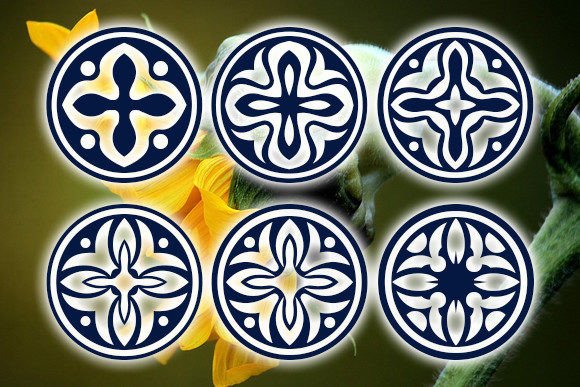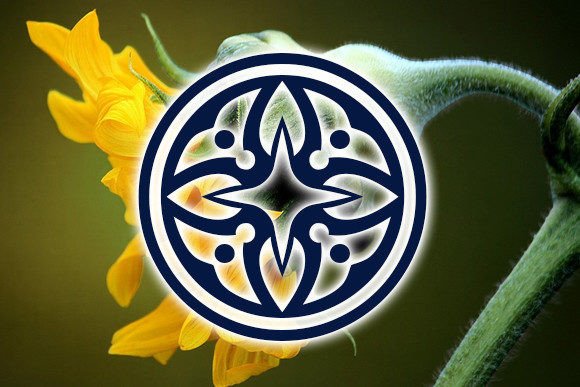
Circular Ornaments Font: Elevate Your Designs with Elegant Dingbats
Are you a designer, crafter, or DIY enthusiast looking for a unique and versatile ornament to add a touch of elegance to your projects? Look no further than the Circular Ornaments Font, an ornamental dingbat that can instantly elevate your designs. This comprehensive guide will explore the features, benefits, and uses of Circular Ornaments, helping you unlock its full creative potential.
What is Circular Ornaments Font?
Circular Ornaments Font is a decorative dingbat font designed to add a touch of sophistication to your designs. As an ornamental dingbat, it consists of intricate circular patterns and shapes that can be used to enhance posters, flyers, prints, and other visual projects. The font is carefully crafted to be versatile and adaptable, making it suitable for various design applications.
Key Features of Circular Ornaments Font
• Intricate Circular Designs: The font features beautiful, intricate circular patterns that can add a touch of elegance to your designs.
• Versatile and Adaptable: Circular Ornaments Font can be used on various design projects, from posters and flyers to prints and digital art.
• Scalable: The font is designed to be scalable, ensuring that it remains clear and crisp even at large sizes.
Benefits of Using Circular Ornaments Font
So, why should you choose Circular Ornaments Font for your designs? Here are just a few benefits:
• Adds Visual Interest: The intricate circular patterns in Circular Ornaments Font can add visual interest to your designs, making them more engaging and attention-grabbing.
• Enhances Creativity: With its unique and elegant designs, Circular Ornaments Font can inspire creativity and help you think outside the box.
• Professional Look: The font’s sophisticated designs can give your projects a professional look, making them suitable for business and commercial applications.
• Customizable: As a font, Circular Ornaments can be customized to fit your design needs, allowing you to experiment with different colors, sizes, and styles.
Using Circular Ornaments Font in Your Designs
So, how can you use Circular Ornaments Font in your designs? Here are a few ideas to get you started:
• Posters and Flyers: Add a touch of elegance to your posters and flyers with Circular Ornaments Font, using it as a title or accent element.
• Prints and Art: Use Circular Ornaments Font to add intricate designs and patterns to your prints and art, creating unique and eye-catching pieces.
• Digital Art: Incorporate Circular Ornaments Font into your digital art, using it to create intricate designs, patterns, and textures.
• Branding and Packaging: Use Circular Ornaments Font to add a touch of sophistication to your branding and packaging designs, making them stand out in a crowded market.
Tips and Tricks for Getting the Most Out of Circular Ornaments Font
To get the most out of Circular Ornaments Font, here are a few tips and tricks to keep in mind:
• Experiment with Colors: Try out different colors and color combinations to see how they interact with Circular Ornaments Font.
• Play with Size: Experiment with different font sizes to see how Circular Ornaments Font looks at various scales.
• Combine with Other Fonts: Try pairing Circular Ornaments Font with other fonts to create unique and interesting typography.
• Use as a Background Element: Use Circular Ornaments Font as a background element to add texture and interest to your designs.
Circular Ornaments Font is a versatile and elegant dingbat that can add a touch of sophistication to your designs. With its intricate circular patterns and adaptability, it’s the perfect addition to any design project. Whether you’re a designer, crafter, or DIY enthusiast, Circular Ornaments Font is sure to inspire creativity and help you create stunning visual projects.